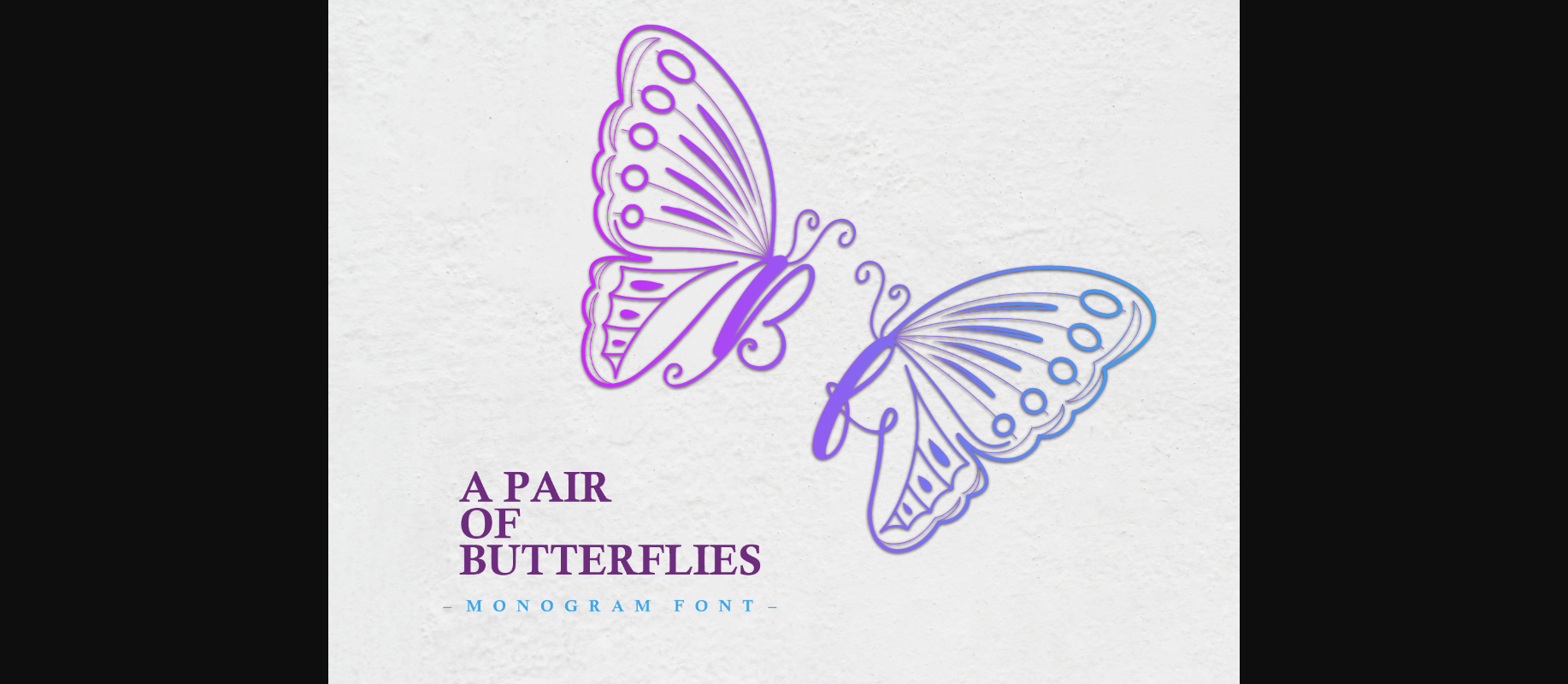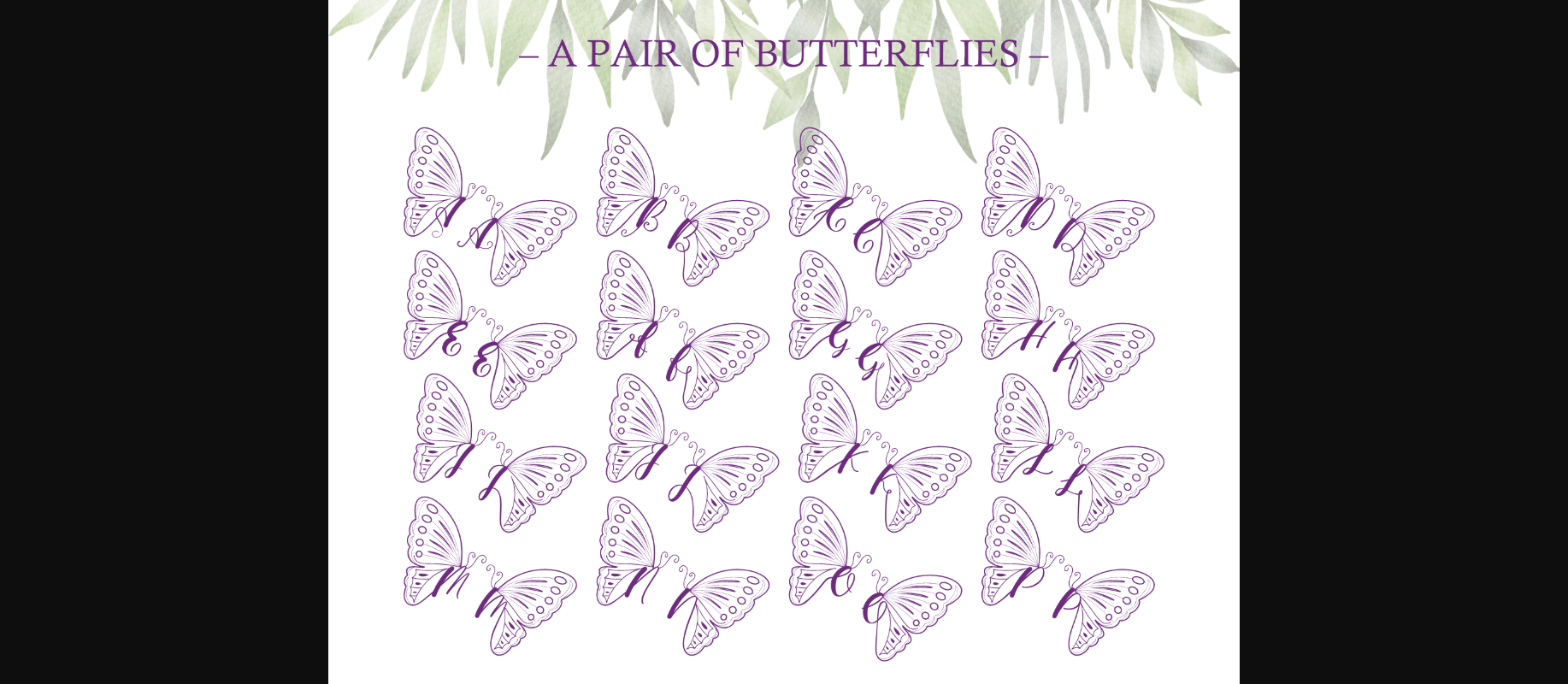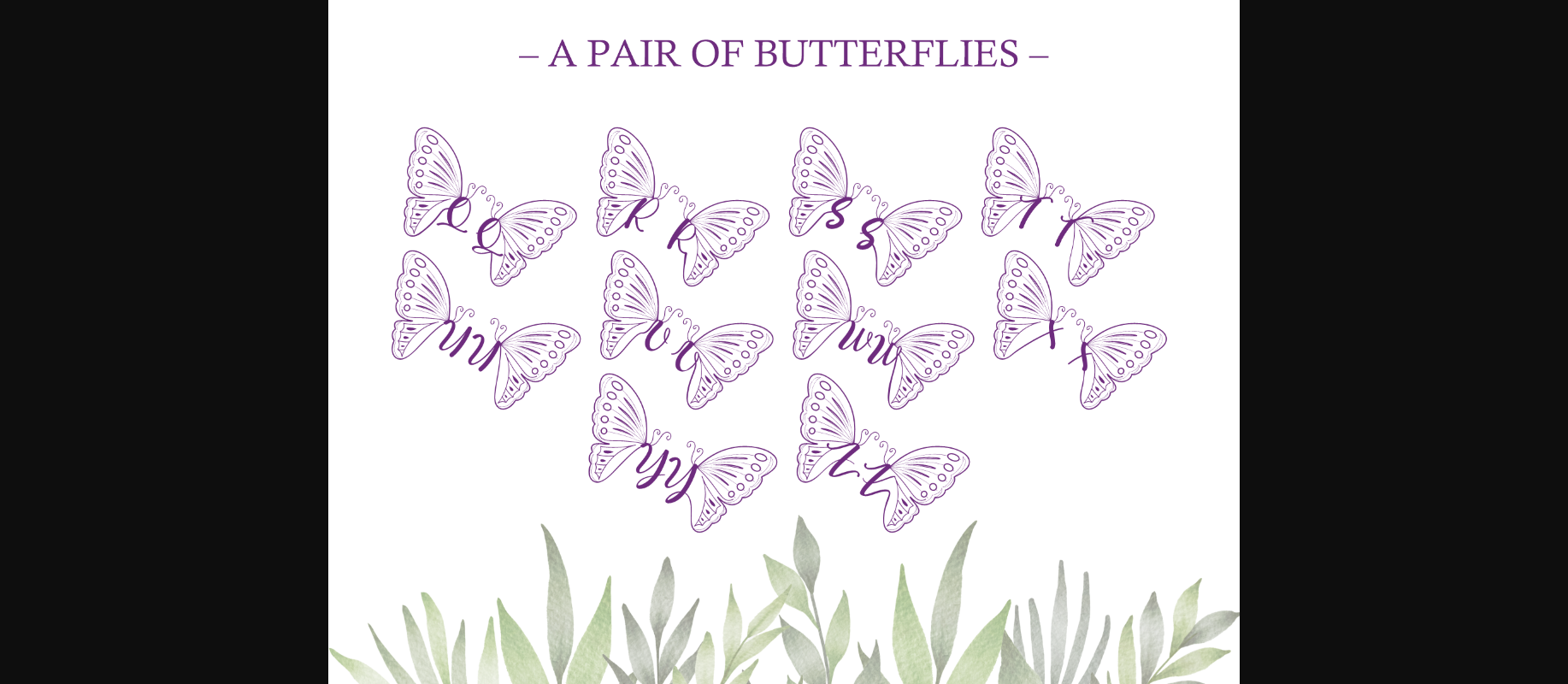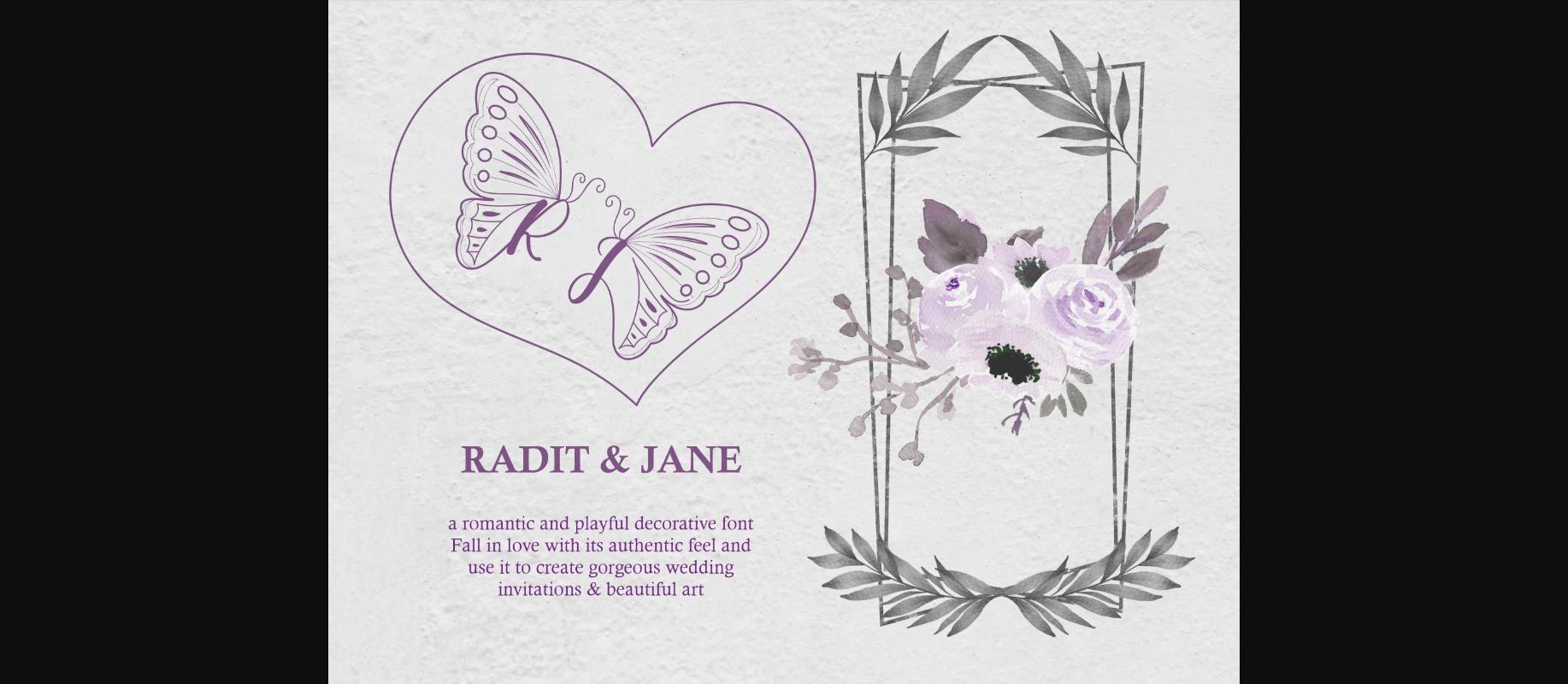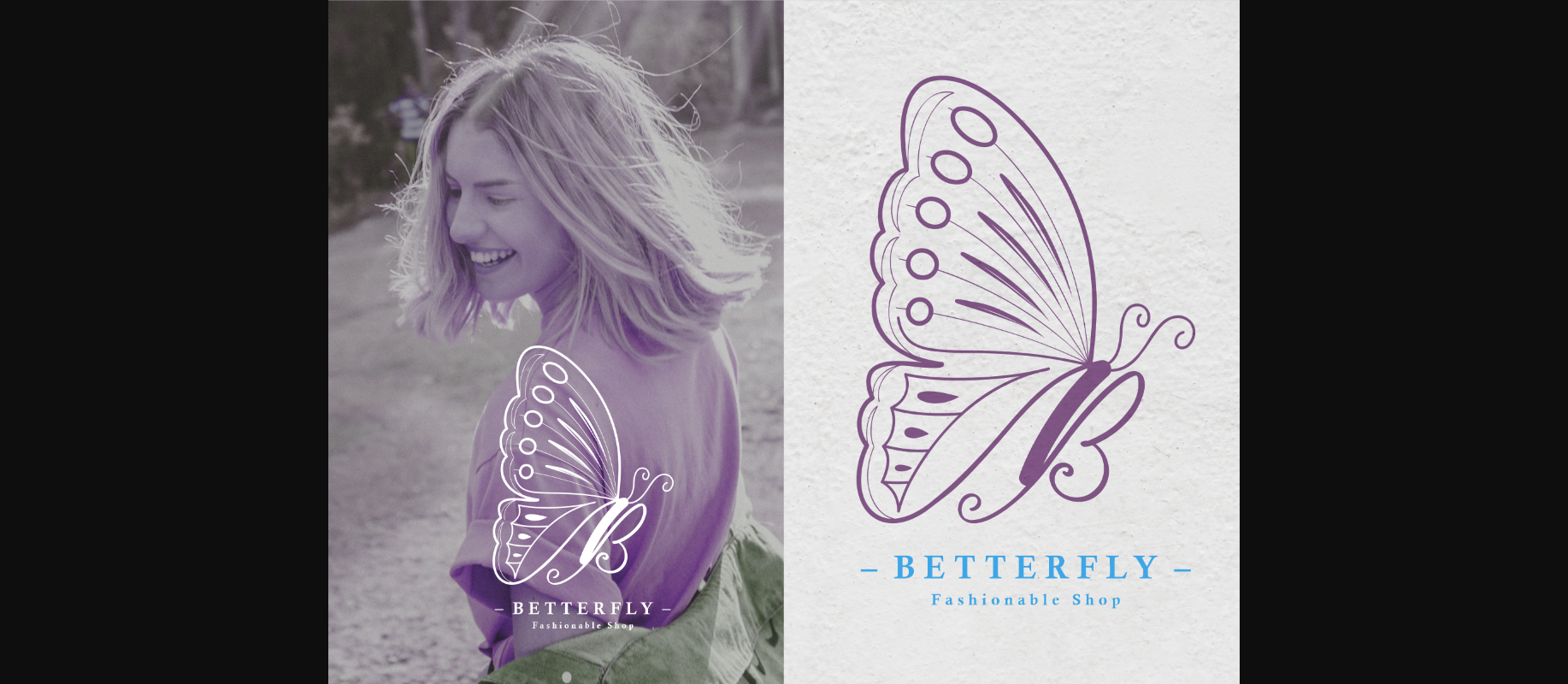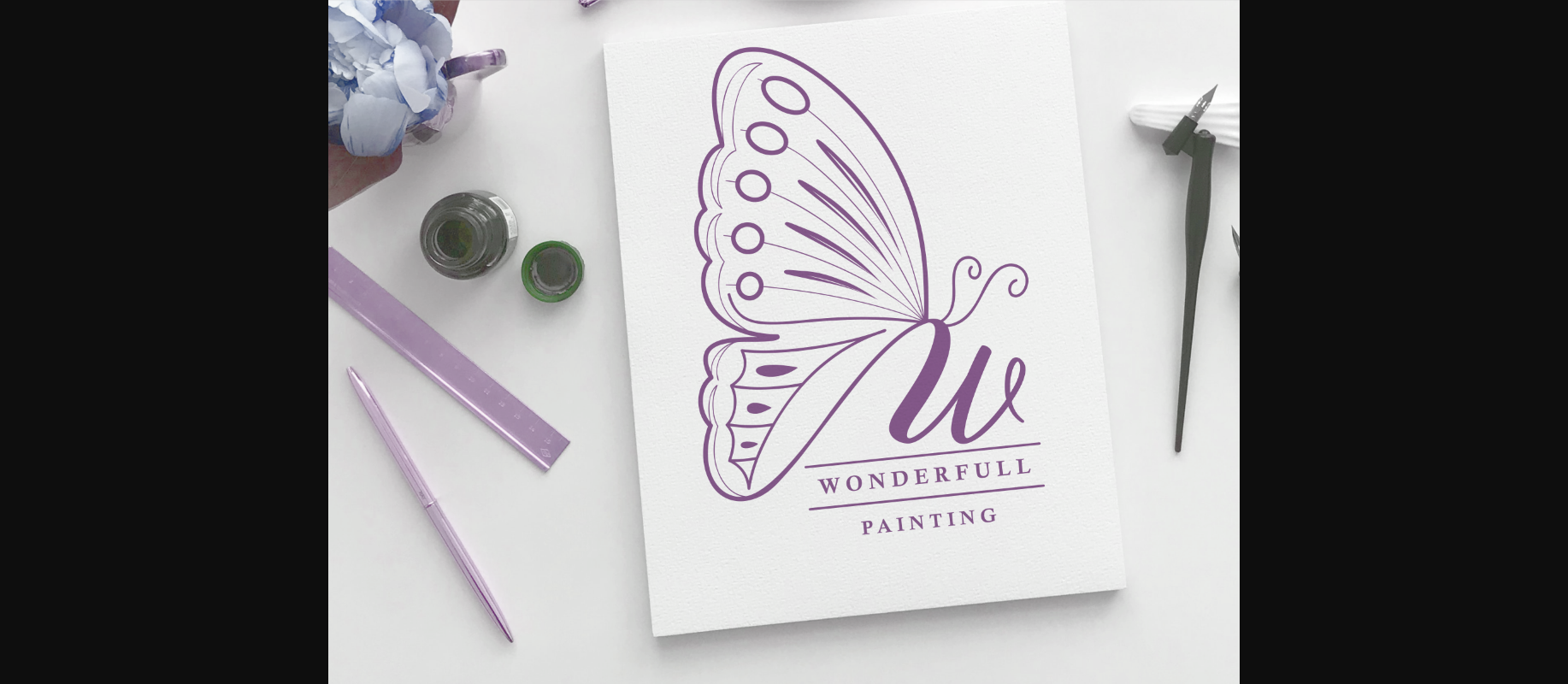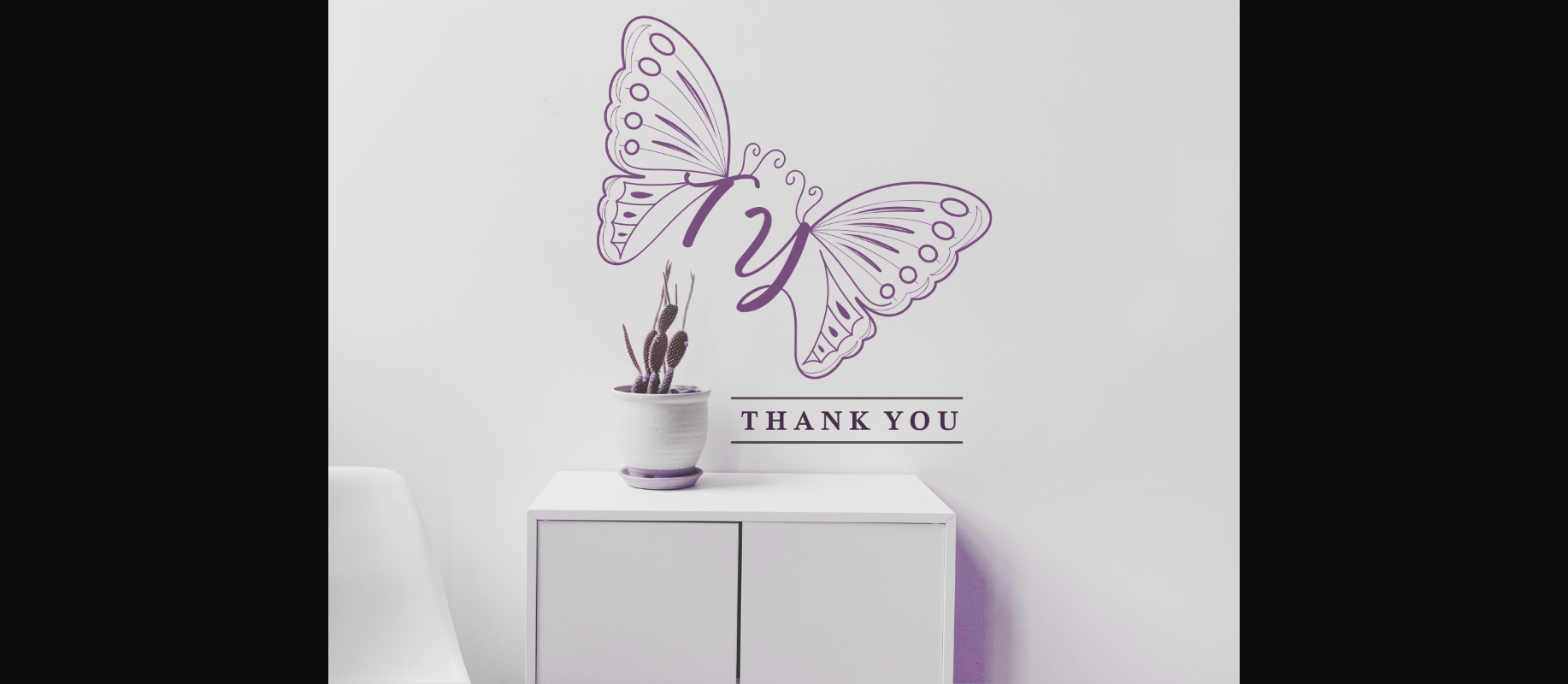
A Pair of Butterflies Font
About A Pair of Butterflies Font
A Pair of Butterflies is an incredibly unique and angelic decorative font, featuring dainty butterfly as ornaments. Fall in love with its incredibly versatile style and use it to create gorgeous wedding invitations, beautiful stationary art, eye-catching social media posts, and much more!